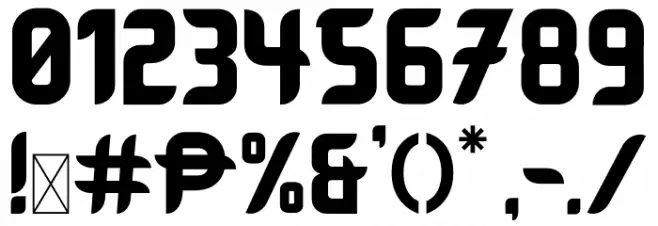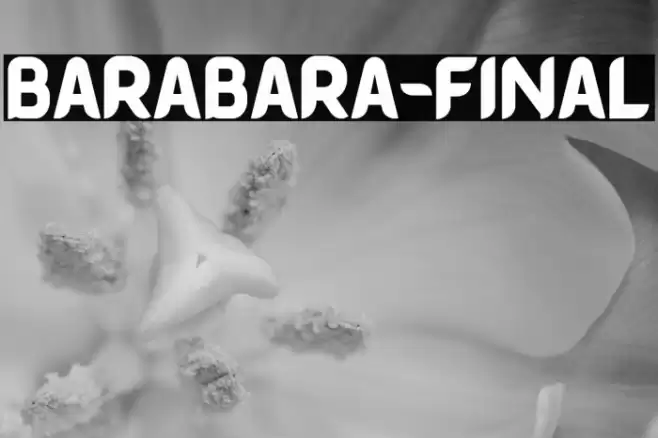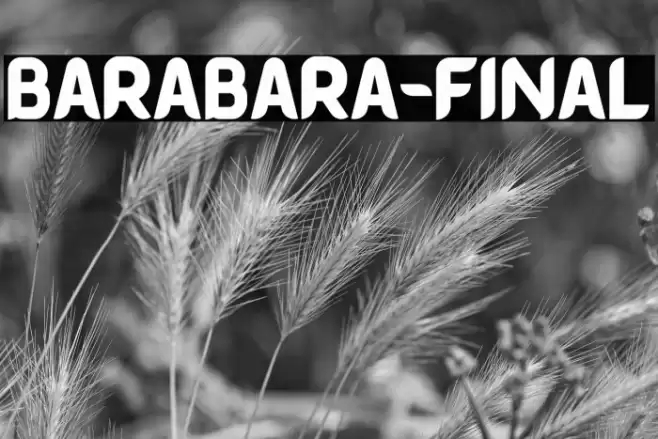
BARABARA-FINAL Font
BARABARA-FINAL Description
This font features bold, geometric letterforms with a modern and futuristic aesthetic. The uppercase letters are characterized by their thick, uniform strokes and slightly rounded edges, giving them a strong and impactful presence. The numerals and special characters maintain the same boldness and geometric style, ensuring consistency across all characters. The overall design is clean and straightforward, making it suitable for attention-grabbing headlines and logos. The font's distinct style is both contemporary and versatile, ideal for projects that require a strong visual identity.